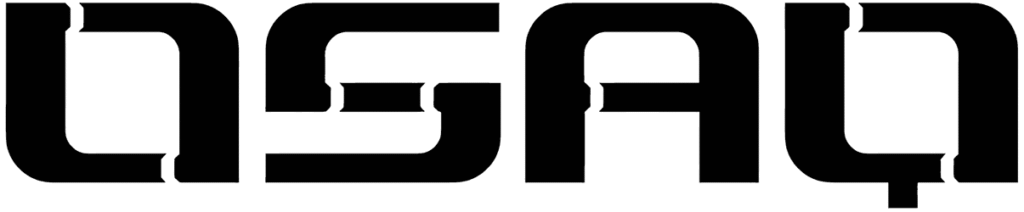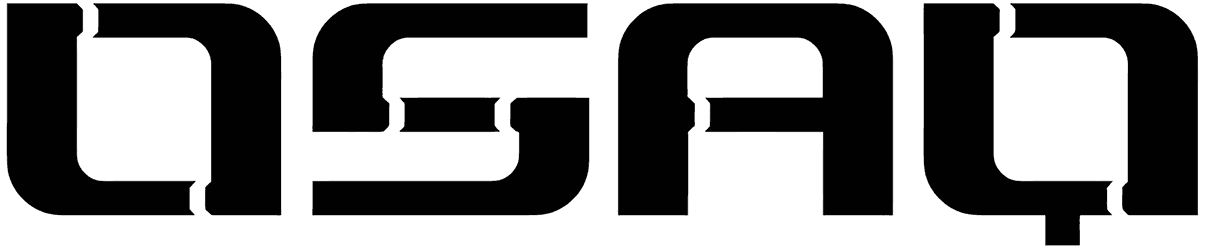
Osaq Font
Starting to feel you’re running out of options for capturing a glimpse of the modern world in your words? Sometimes, we can relate, but then we remember the vast collection of tech fonts on RB, and we’re back to normal, full of inspiration and everything.
Take Osaq, for instance. There’s no way those strong letters can fail you. So if you don’t mind the missing lowercase, try it as your music studio logo, video game posters, and something else like that.